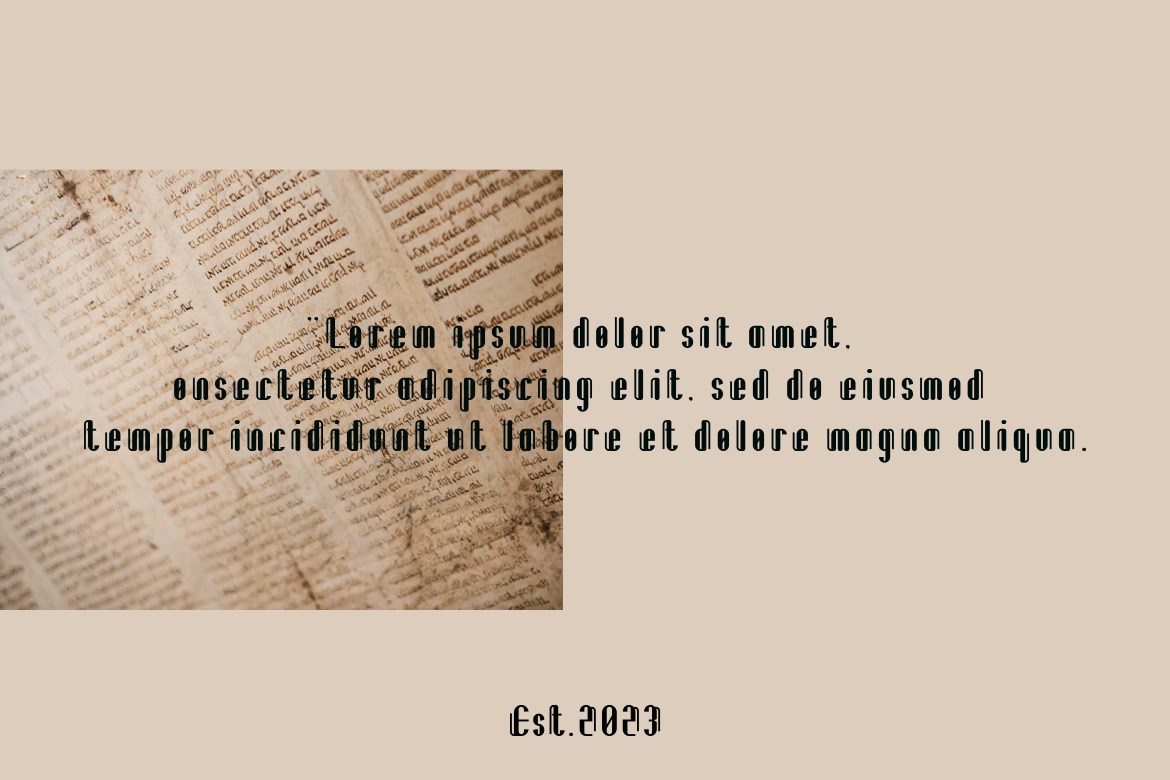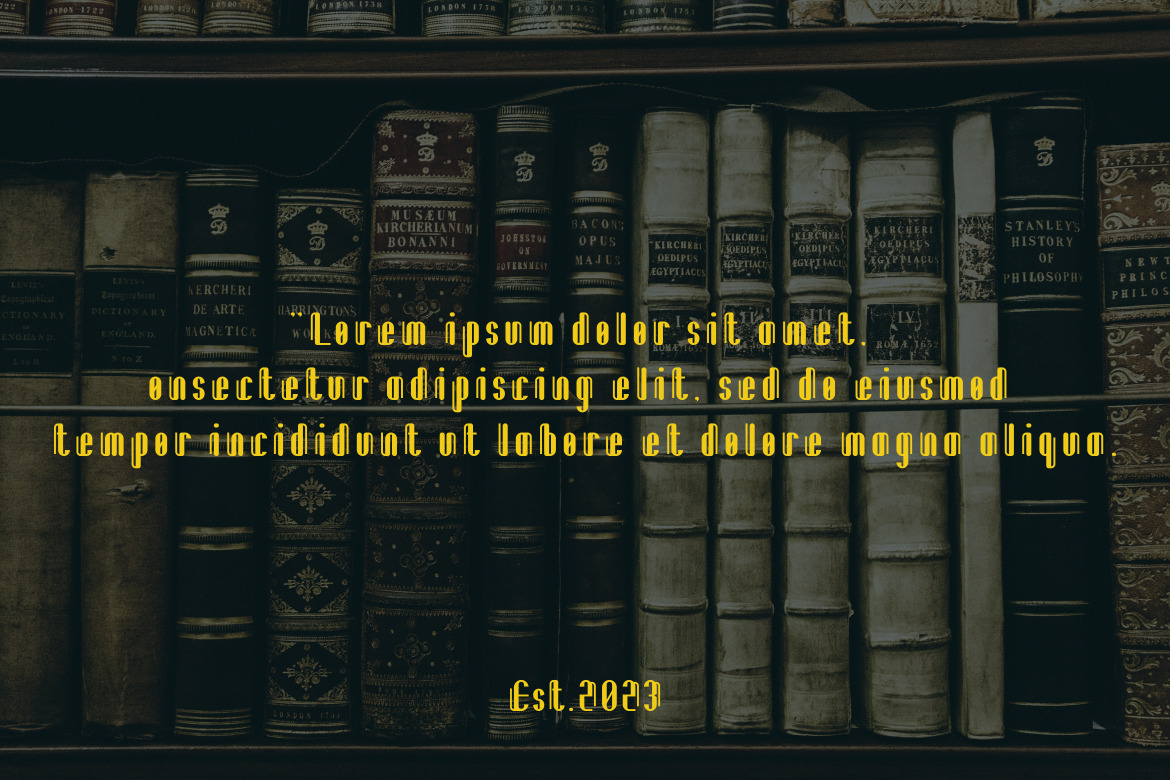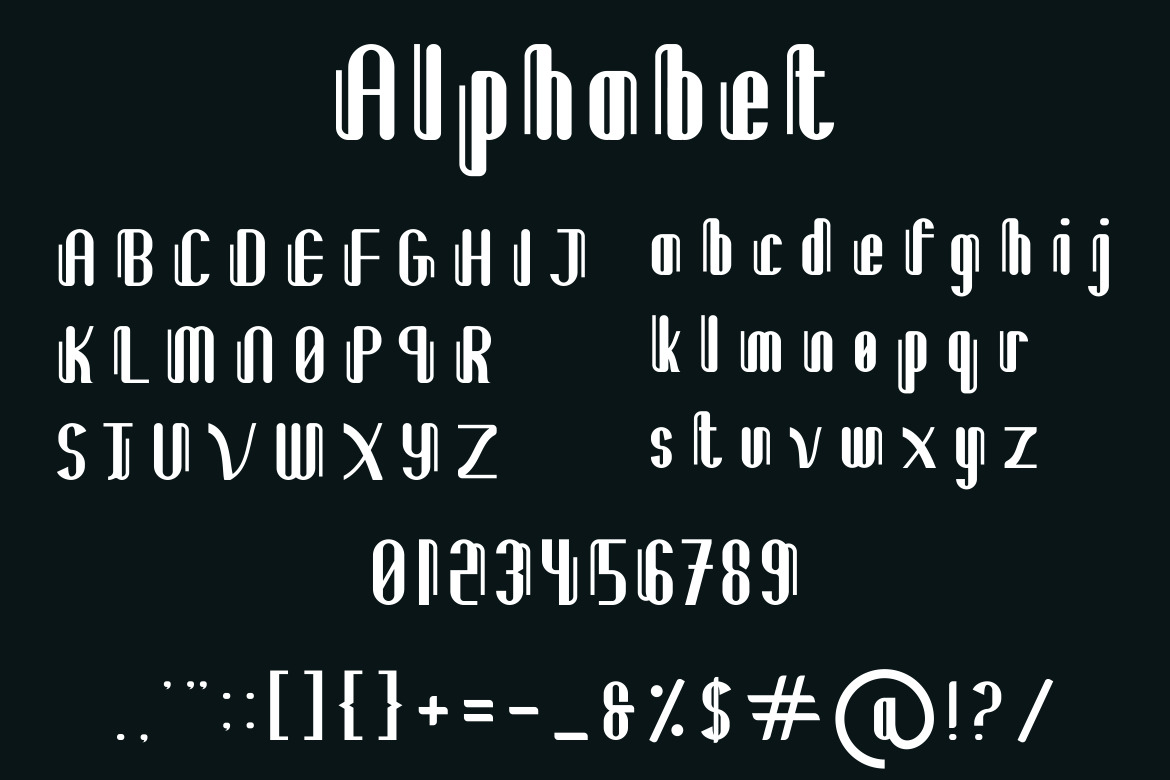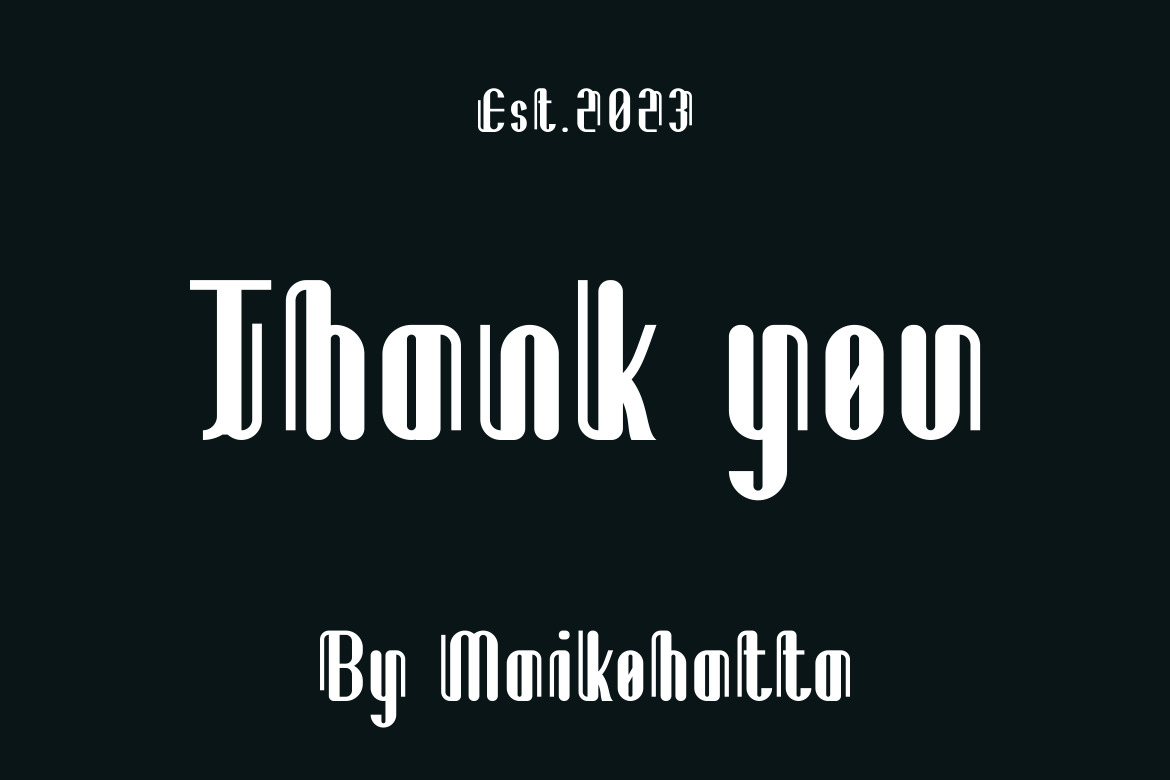
Hambalant Font
Introducing our new product **Hambalant Font**
**Hambalant Font** Every letter in this font becomes a visual creation. From elegant curves to dramatic sharp angles, this font creates a unique rhythm that exudes character and emotion. The extra lines, ornate strokes, and intricate details characterize this font, making it perfect for design projects that want to convey an artistic, vintage feel.